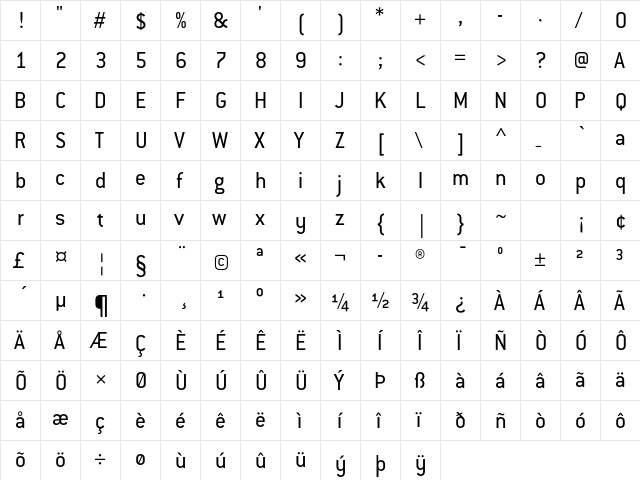
ConduitITCStd Regular
| Foundry | International Typeface Corporation |
| Designer | Mark van Bronkhorst, MvB Design |
Design Context for ConduitITCStd Typeface
ConduitITCStd offers clean, dependable letterforms without strong stylistic allegiance, making it a practical choice for designers who need flexibility. The condensed width makes it efficient for tight spaces without sacrificing legibility.
Originally released in 1997, this typeface is available in OpenType (OTF) format.